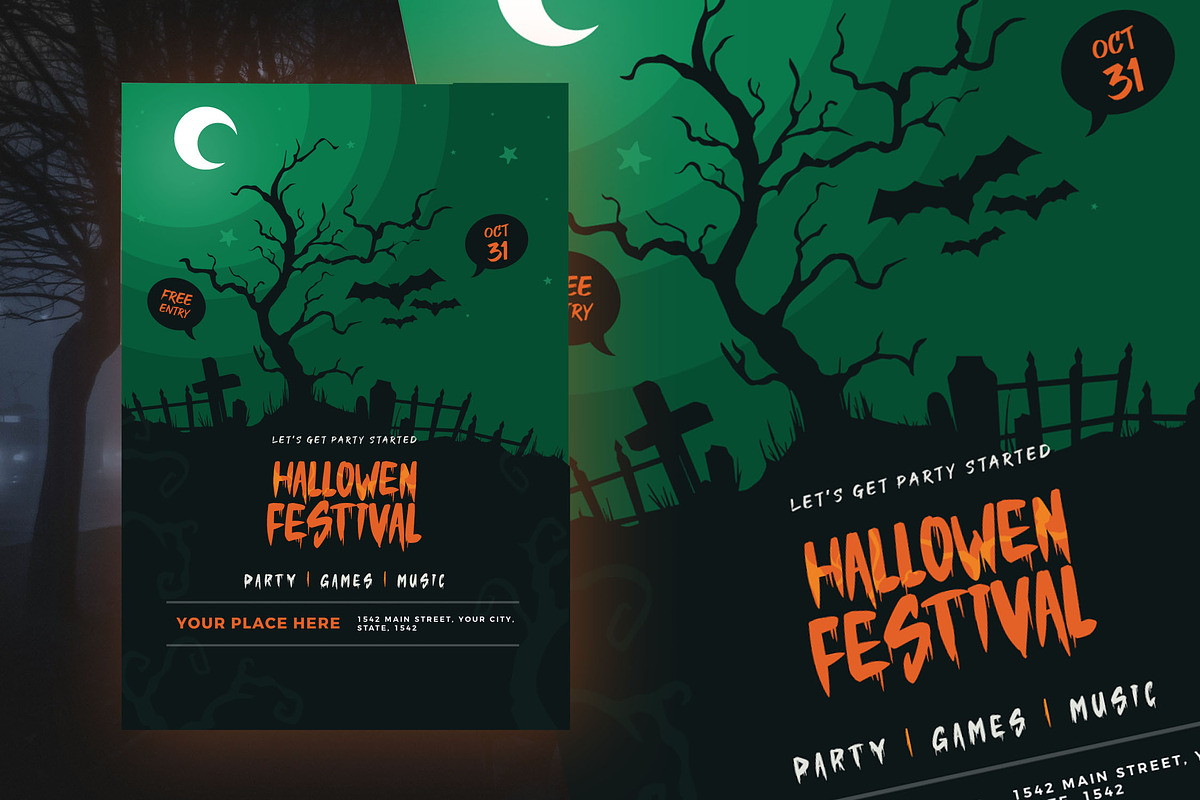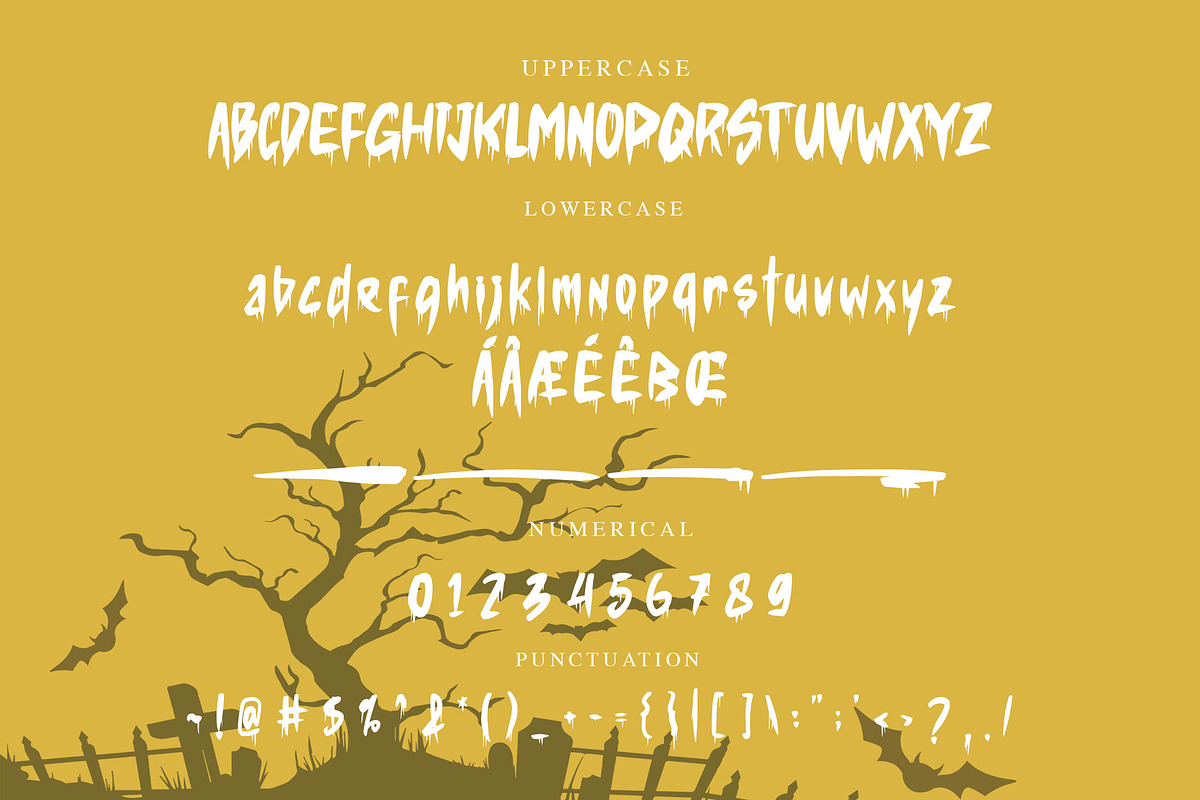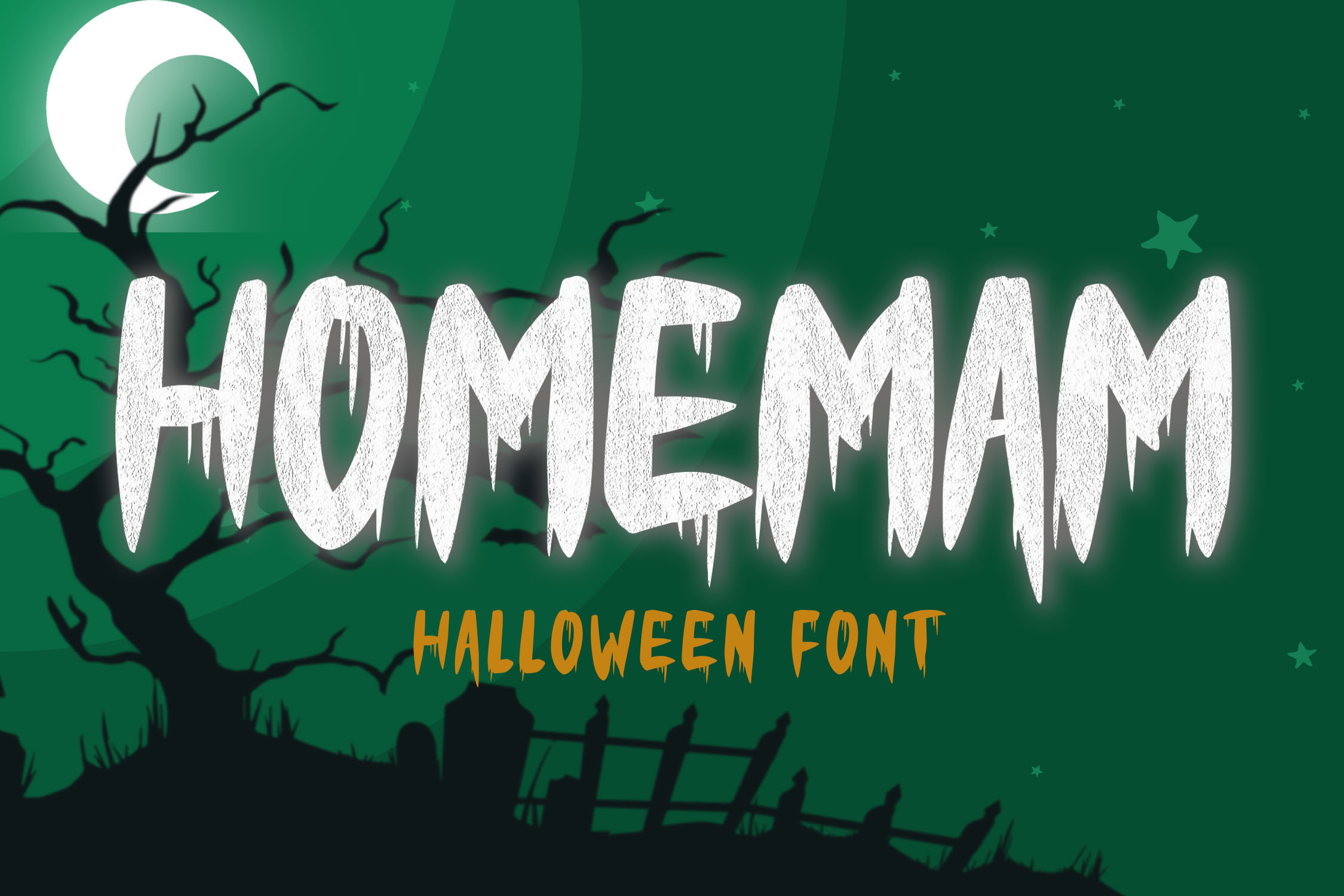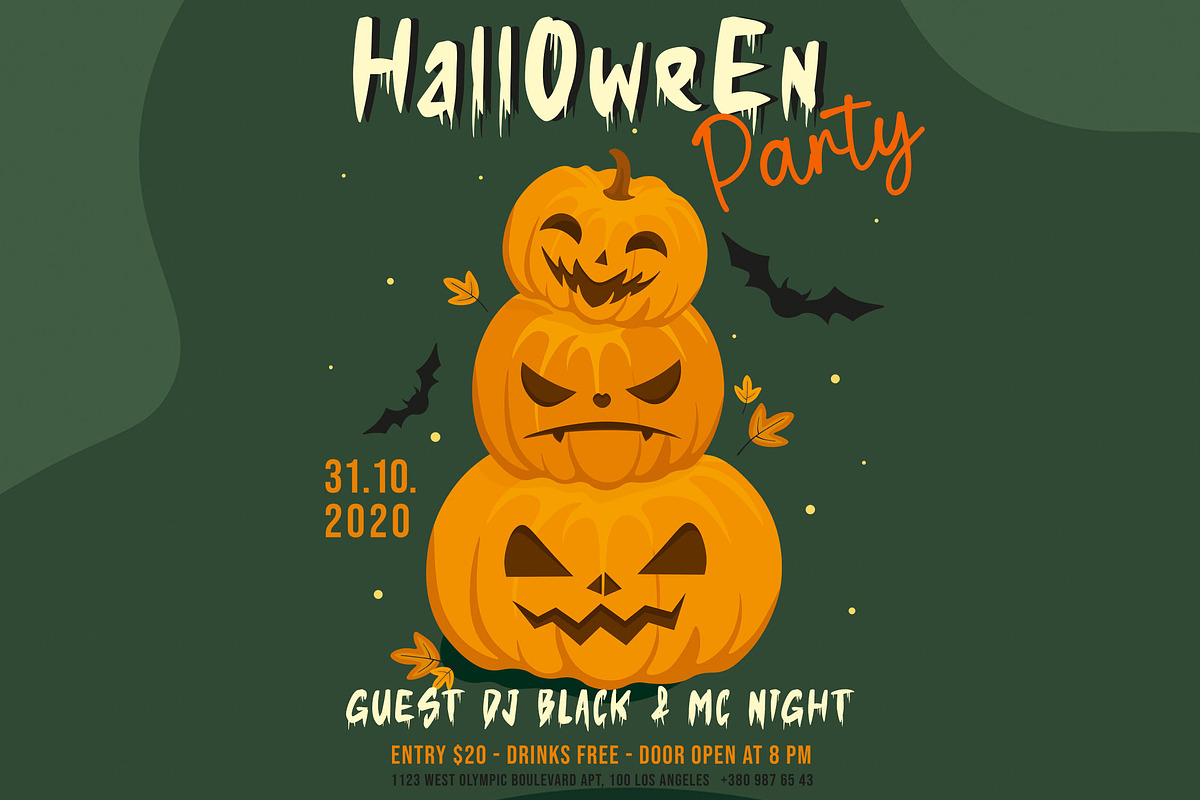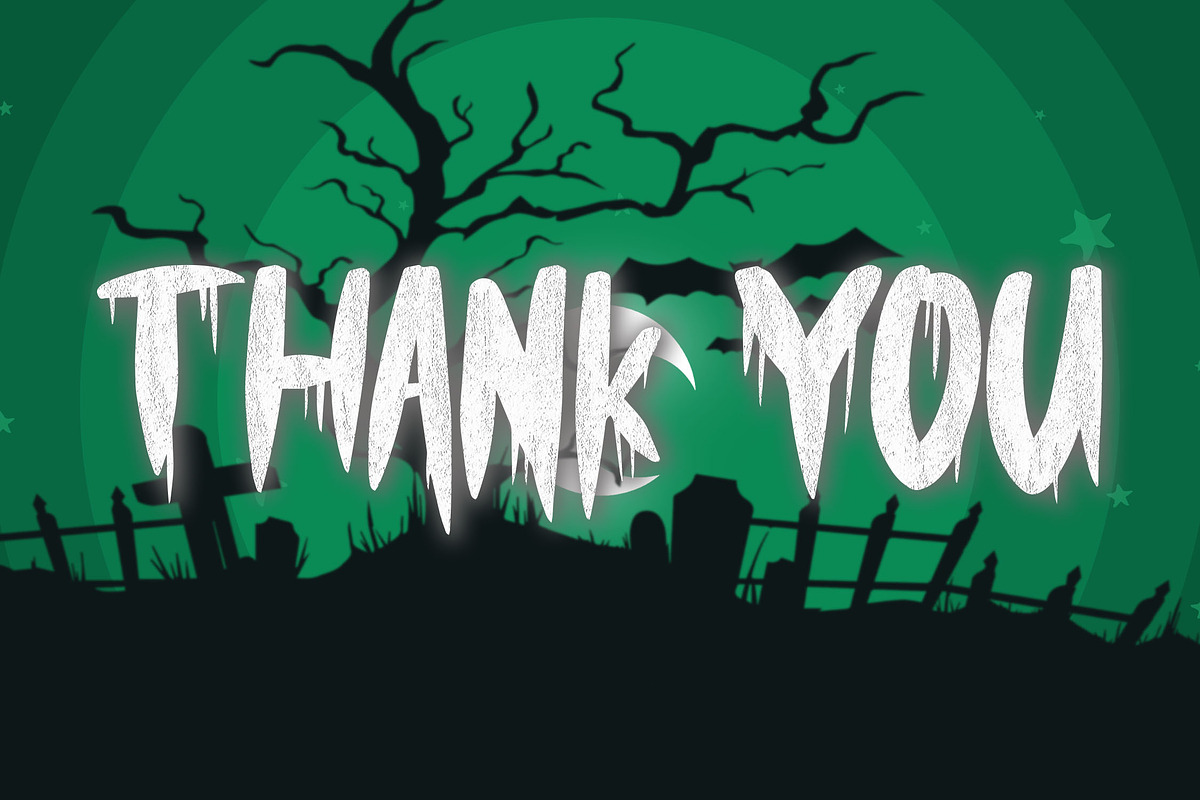
HOMEMAM - Halloween Font
HOMEMAM is a horror halloween themed font with a very unique melt-like character. The HOMEMAM font is perfect for halloween card and halloween banner designs. This font is suitable for making previews and covers, logo designs, shirt designs and other graphic needs.